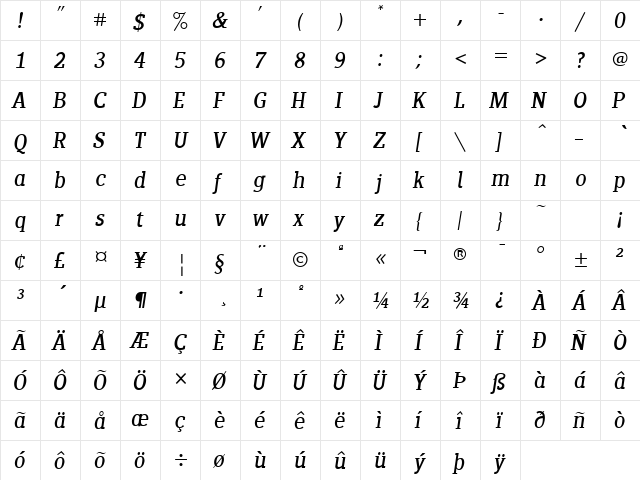
Siseriff LT Std Italic Regular Font Preview
| Foundry | Linotype Library GmbH |
| Designer | Bo Berndal |
Design Context for Siseriff LT Std Italic Typeface
Siseriff LT Std Italic brings classic typographic sensibility to the table — its serifs and measured letterforms reflect centuries of print heritage. The dynamic lean of this cut emphasises speed and emphasis in any layout. Its slender proportions lend an understated elegance to any composition.